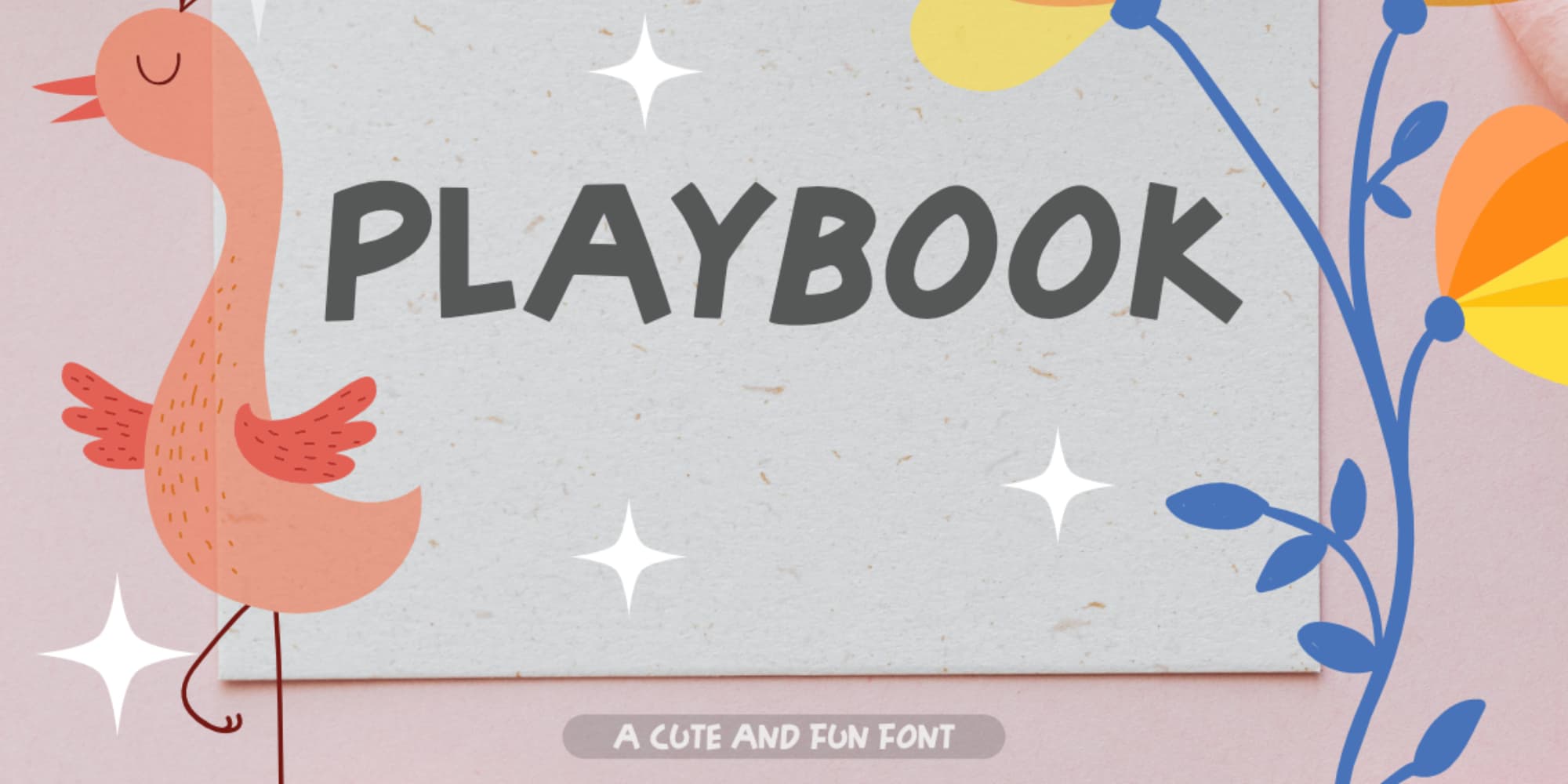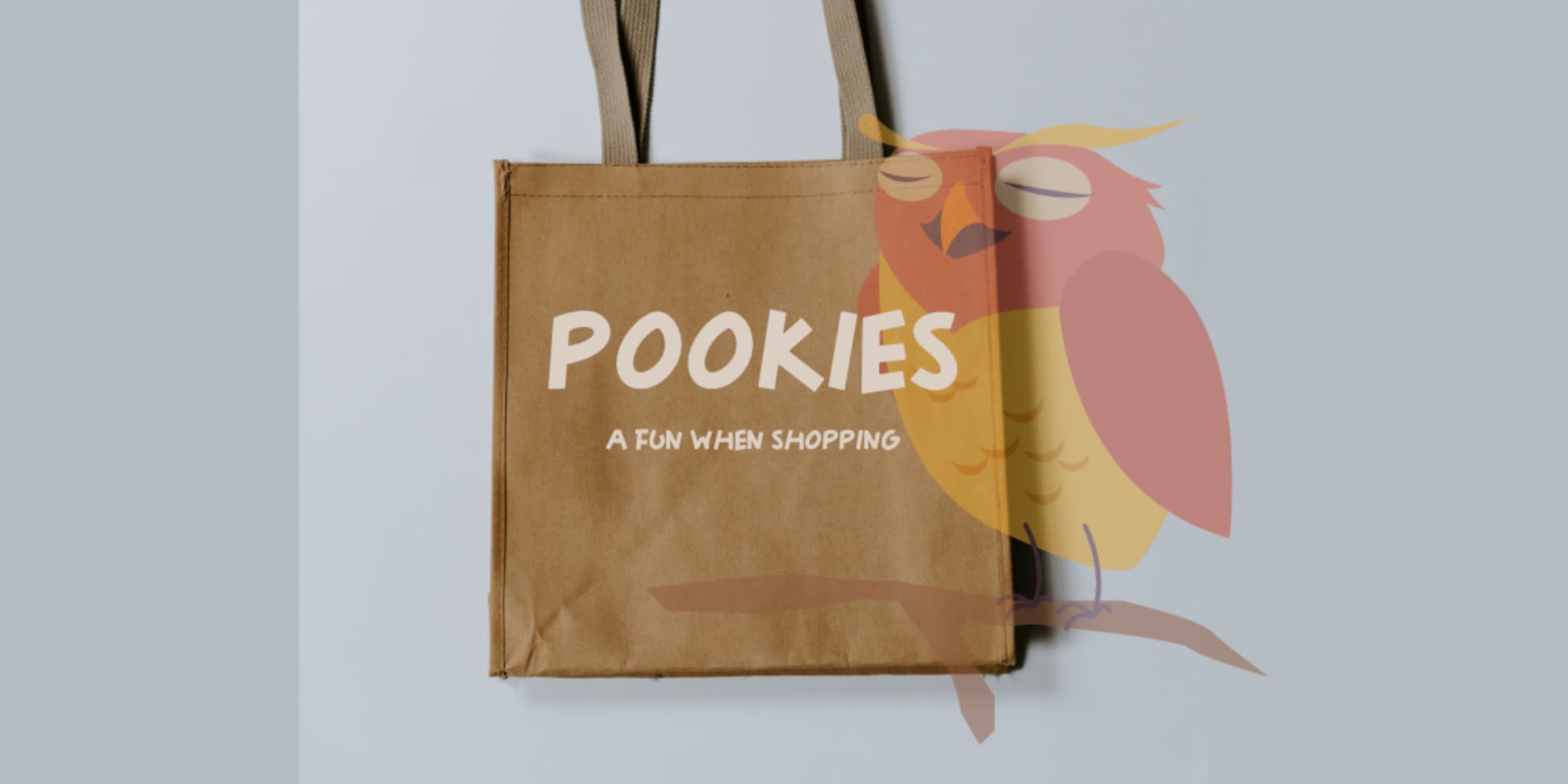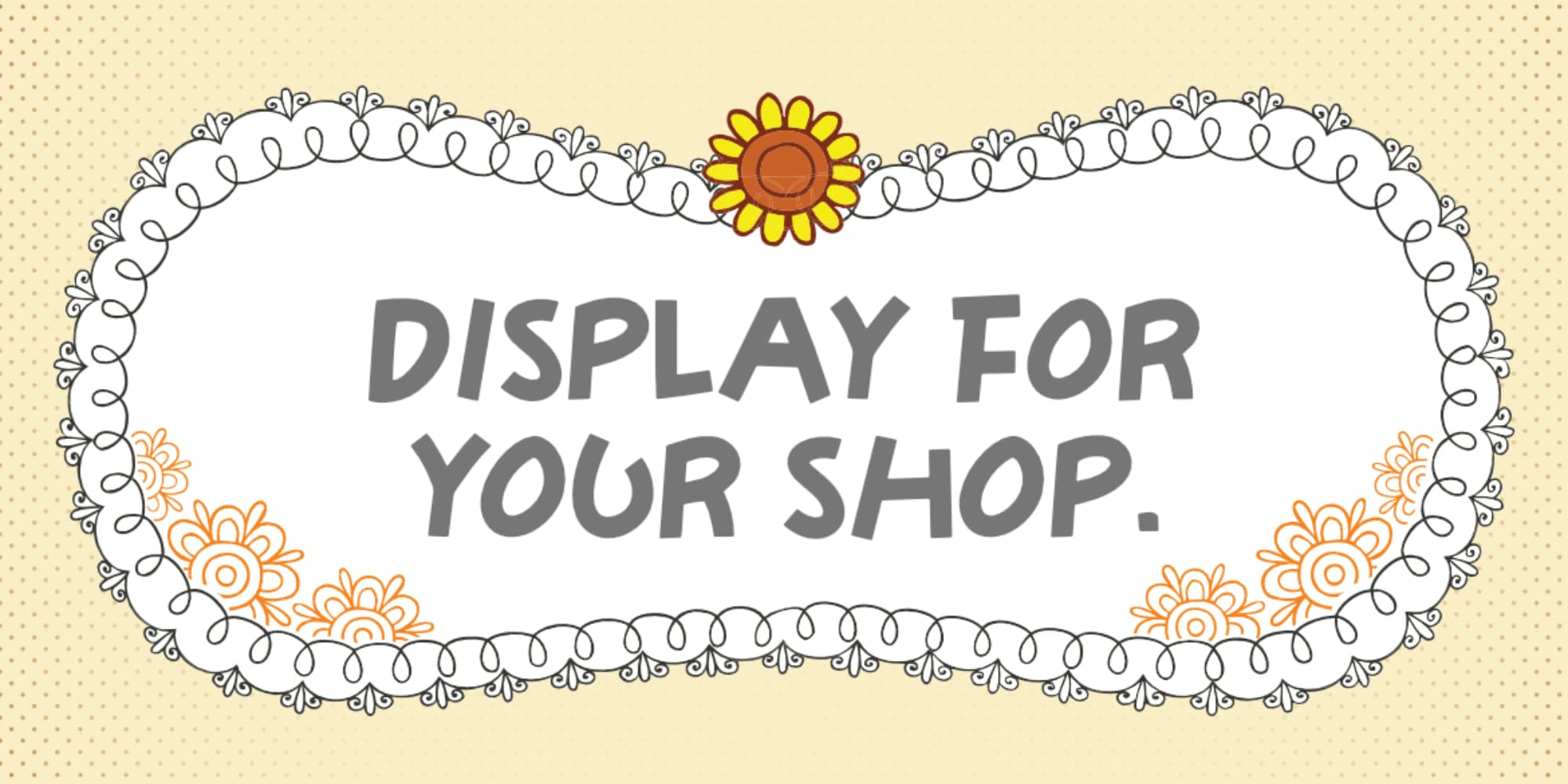
Playbook
**Playbook Playful Sans Serif Font**, inspired by playful cartoon style typography. This font is made with a high premium quality level which you can use as flyers, quotes, posters, banners, packaging, merchandise, logotypes and much more.